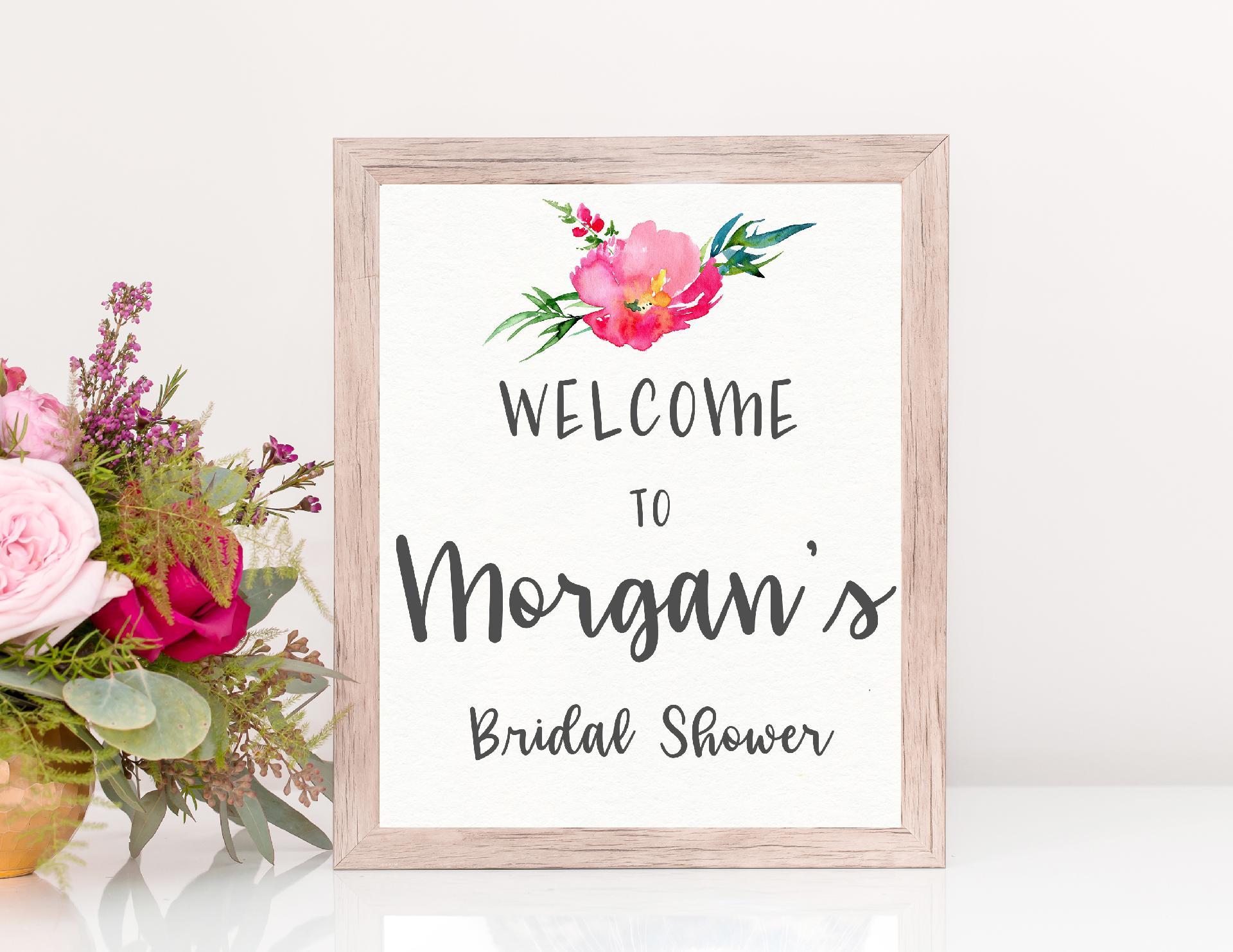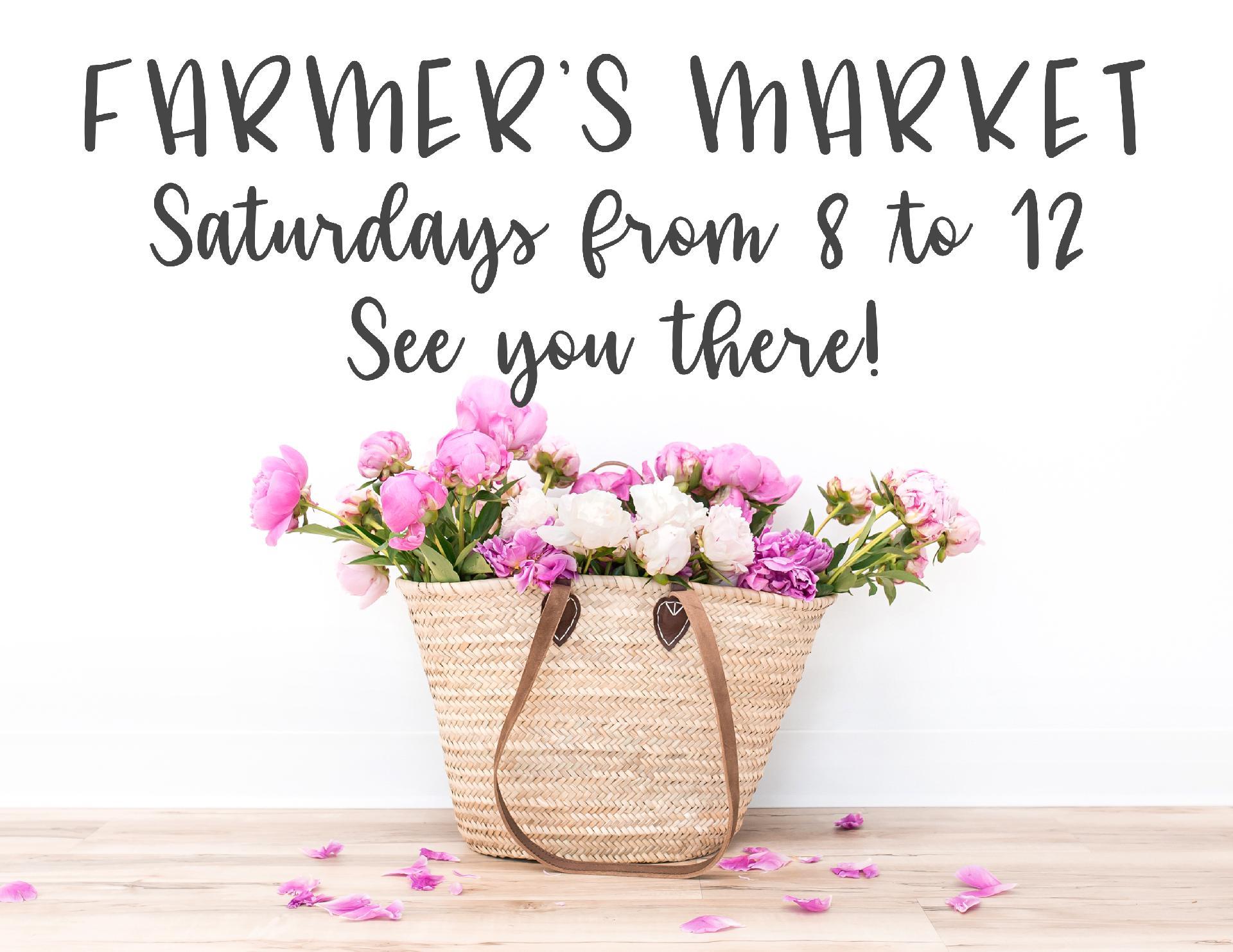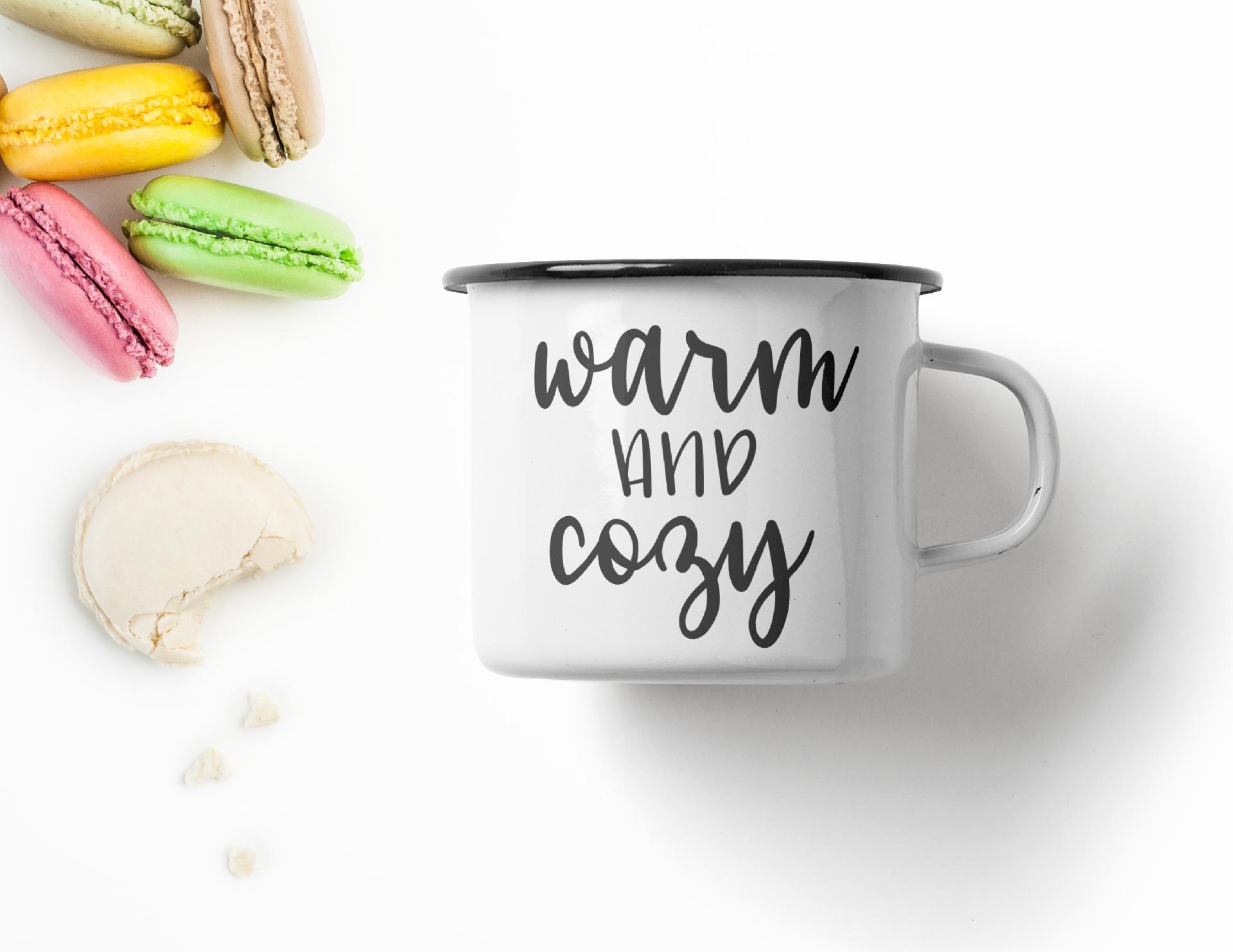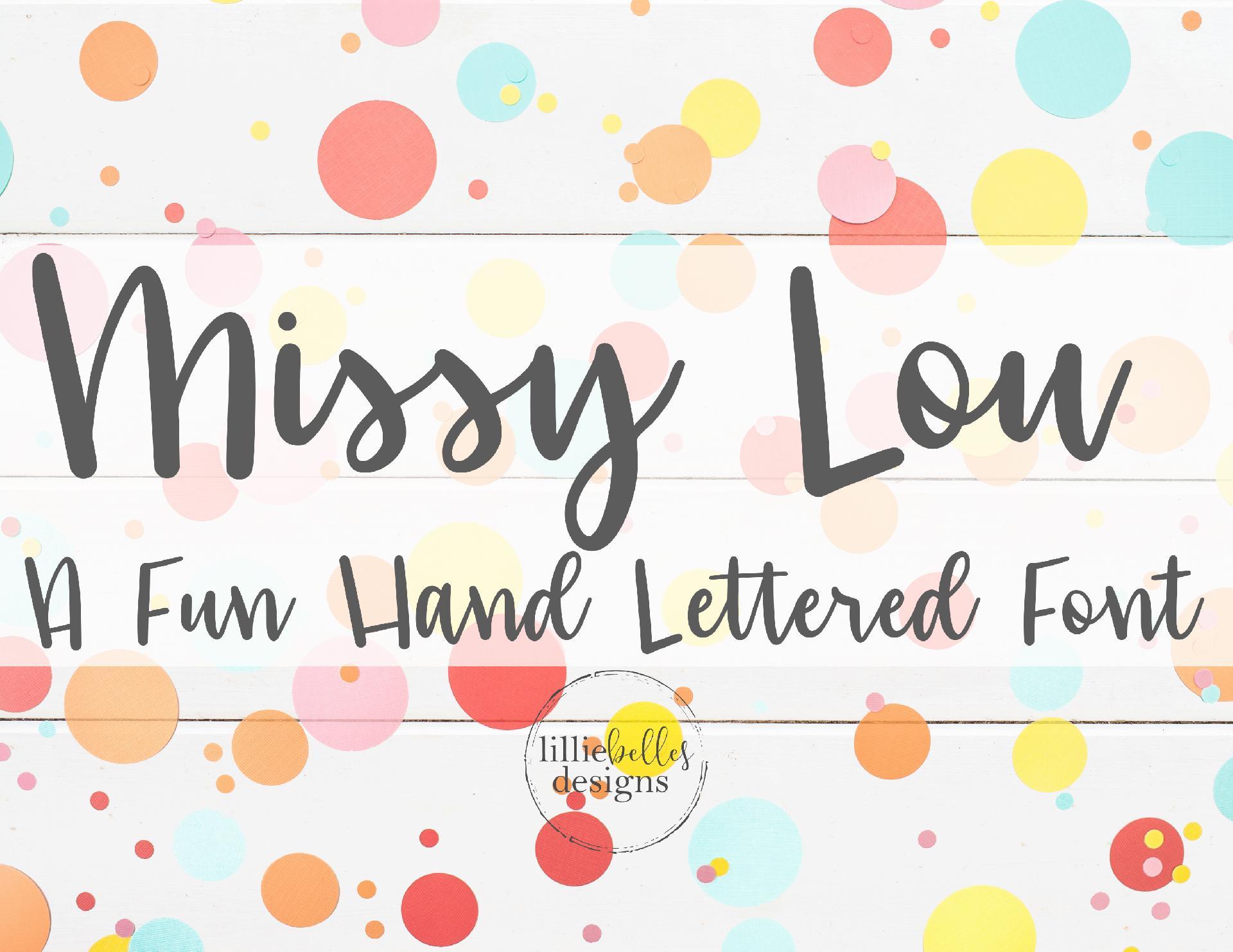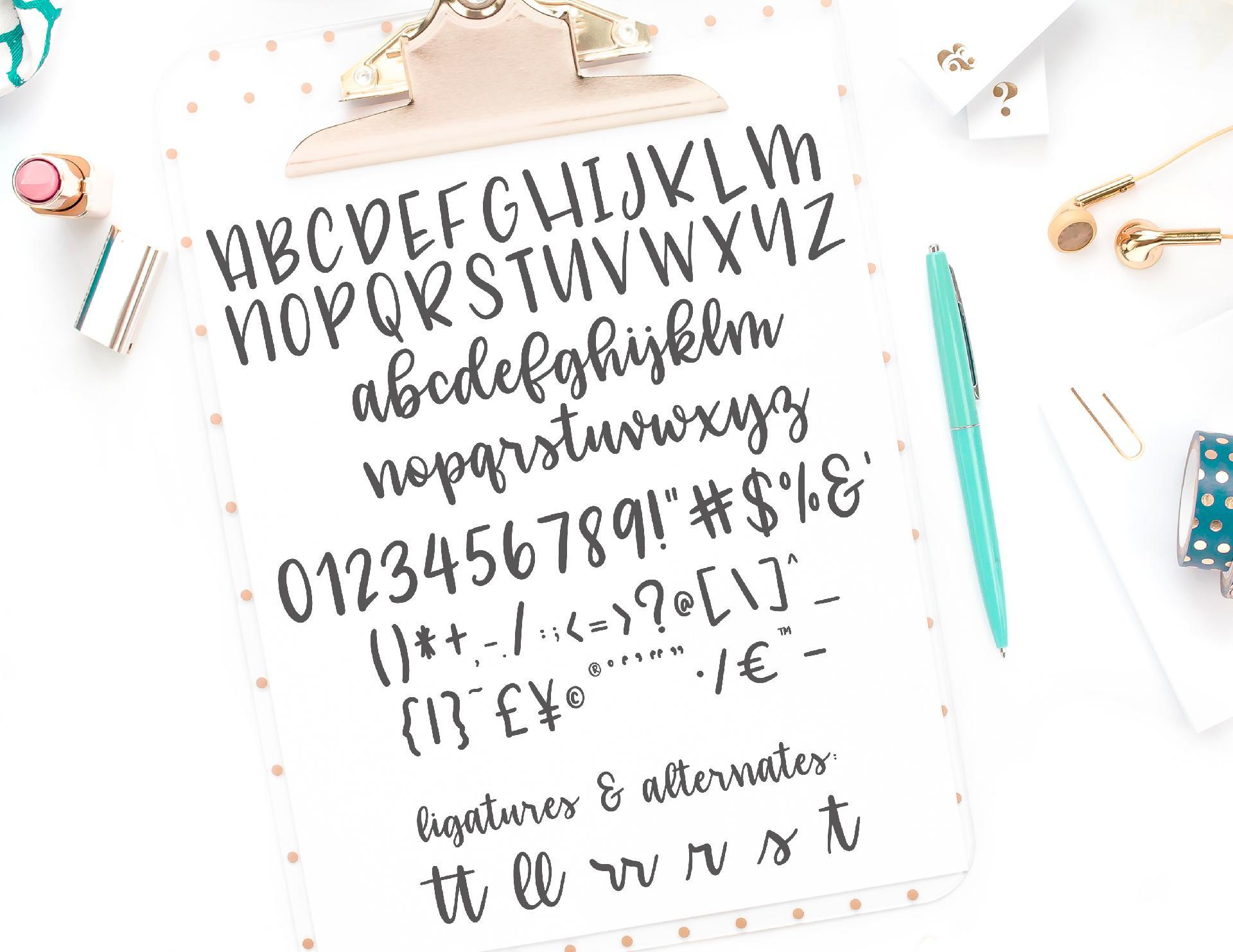
Missy Lou Font
About Missy Lou Font
Missy Lou –   A hand written font. Missy Lou is a fun hand written font!  Check out the listing photos for design examples & the character list. Uppercase print and lowercase script characters Numbers, punctuation, and symbols Standard ligatures and special beginning characters .otf and .ttf files PUA encoded making this a cut-friendly font Enjoy!